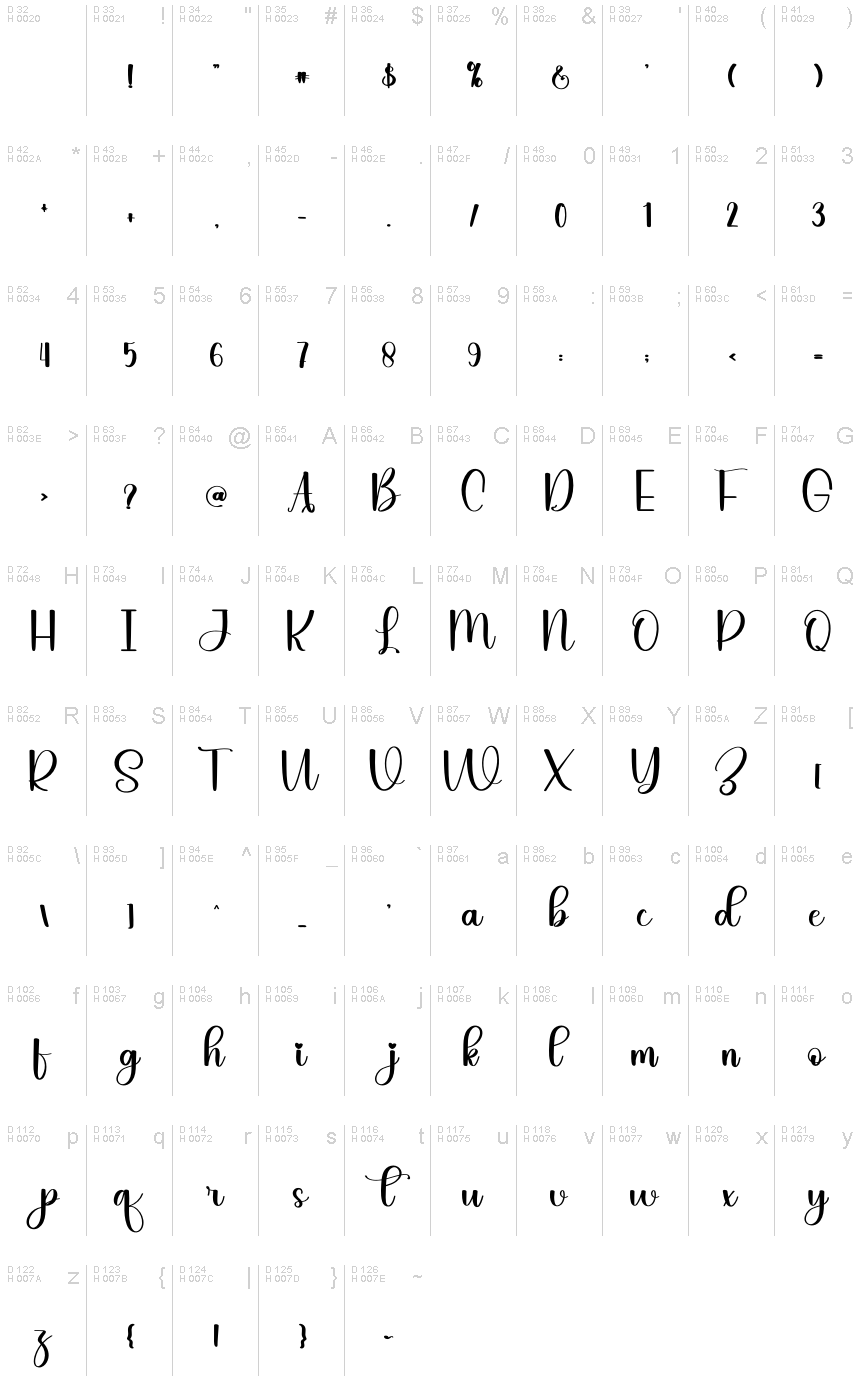
Longday
Longday, a captivating handwritten font crafted by FreshtypeINK, effortlessly blends elegance and dynamism. This expressive typeface exudes a charming, artisanal essence, with its fluid strokes and naturalistic curves evoking a sense of warmth and authenticity. Longday's distinctive personality lends itself seamlessly to a range of design applications, from invitations and greeting cards to editorial layouts and branding materials.
Longday's versatility allows it to elevate a variety of design projects, from the whimsical to the sophisticated. Its adaptable nature makes it an ideal choice for crafting eye-catching headlines, impactful logos, and heartfelt personal correspondence. Whether you're designing a rustic wedding invitation or a chic lifestyle magazine, the Longday font by FreshtypeINK offers a refined and memorable typographic solution.